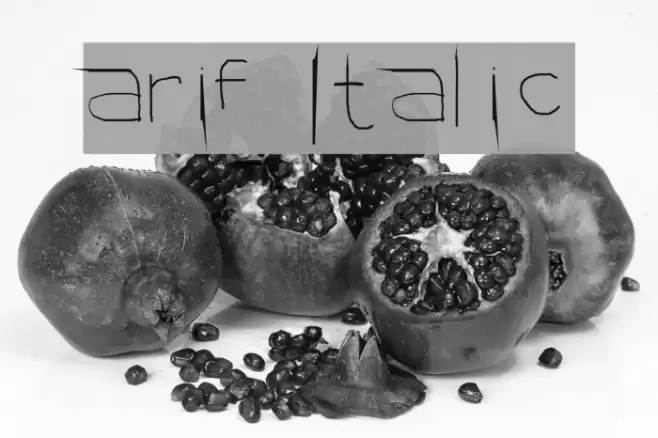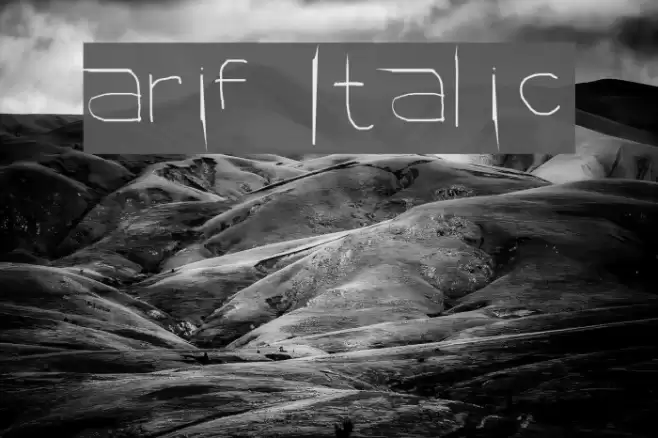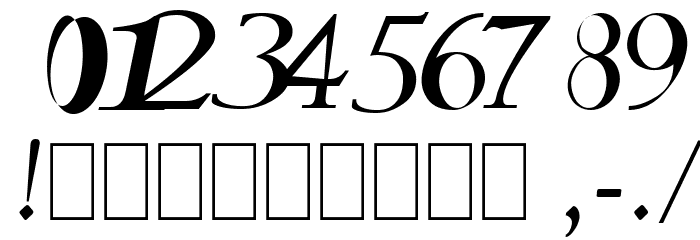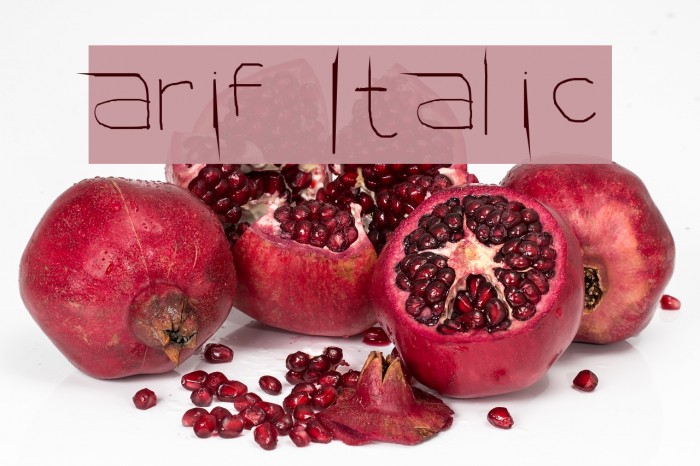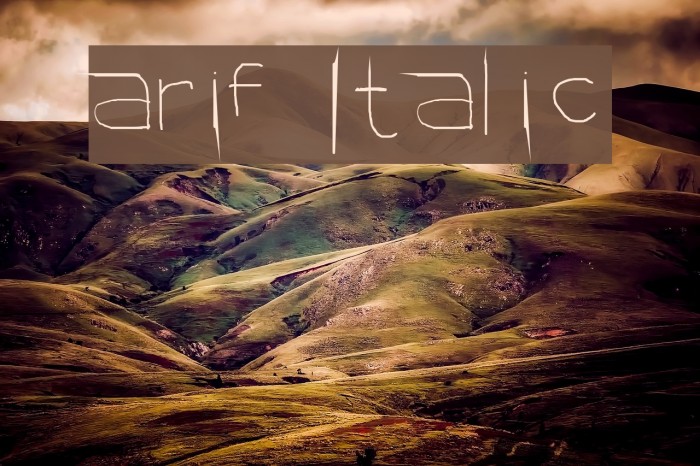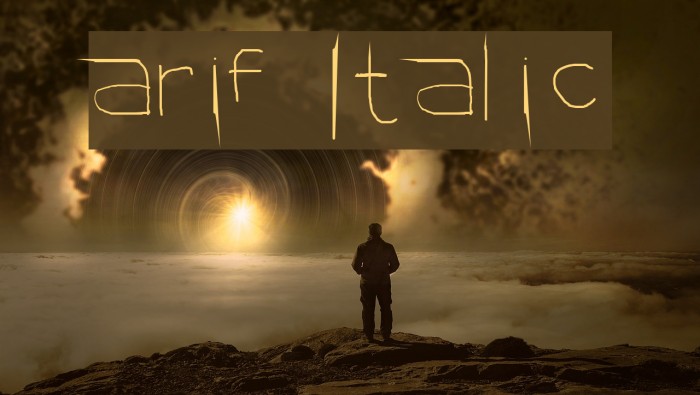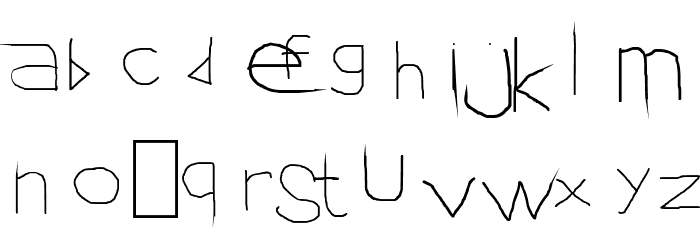
arif Italic Font
arif Italic Description
This font features a unique blend of handwritten and decorative styles, characterized by its irregular and slightly jagged letterforms. The uppercase letters have a distinct, angular appearance with varying stroke thickness, giving them a dynamic and edgy feel. The lowercase letters maintain this irregularity, adding a playful yet sophisticated touch. The numerals are bold and slightly italicized, providing a strong contrast to the more delicate letterforms. Special characters are included, maintaining the overall aesthetic with a mix of bold and thin strokes. This font's distinctive style makes it suitable for creative and artistic projects.
A dynamic, handwritten-style font with irregular, angular letterforms and bold numerals from Uncategorized fonts.
- Proposed Projects: Ideal for artistic projects, branding, posters, and creative designs where a unique and edgy look is desired.
- Use Case: Logos, Posters, Creative designs